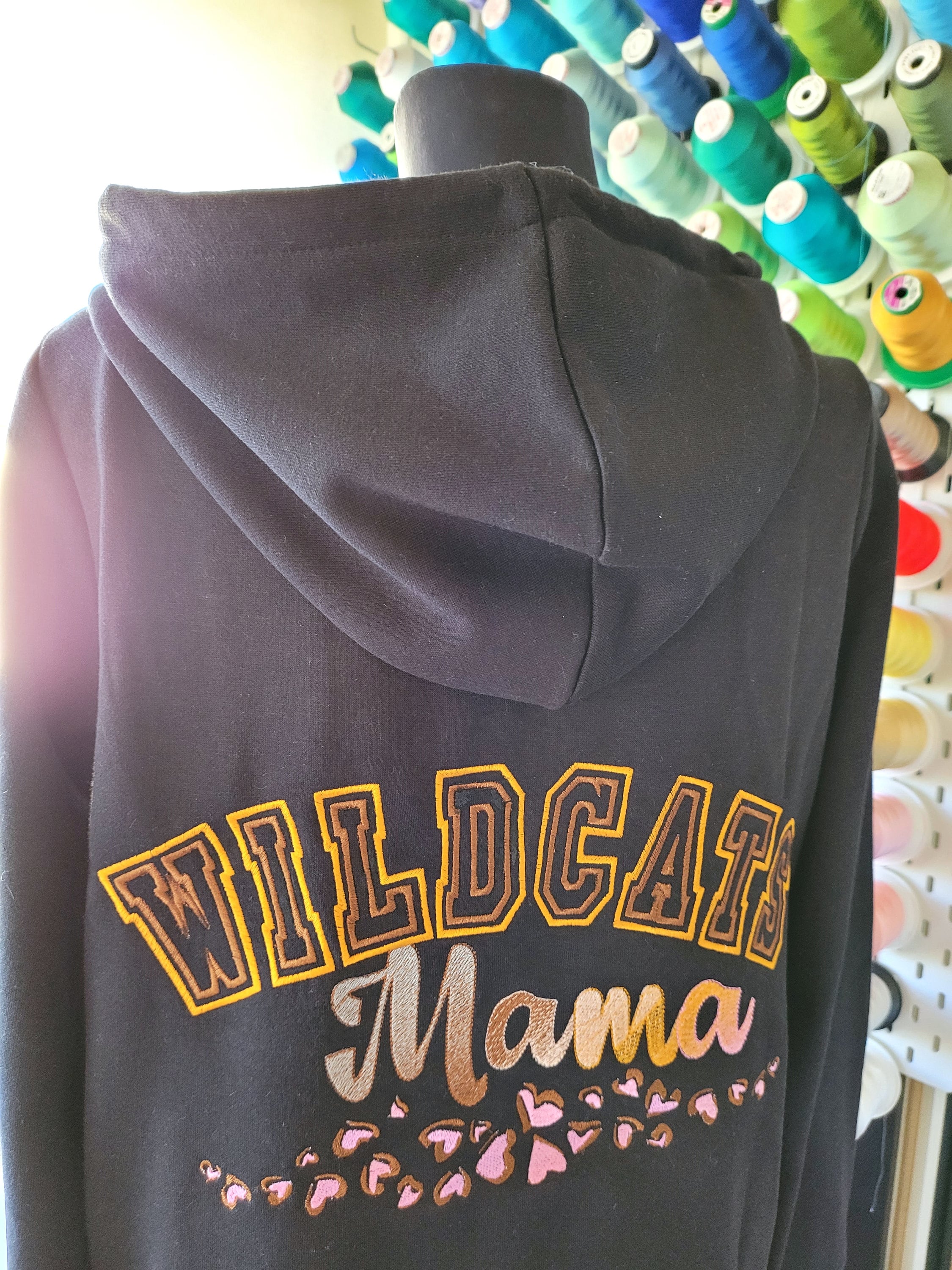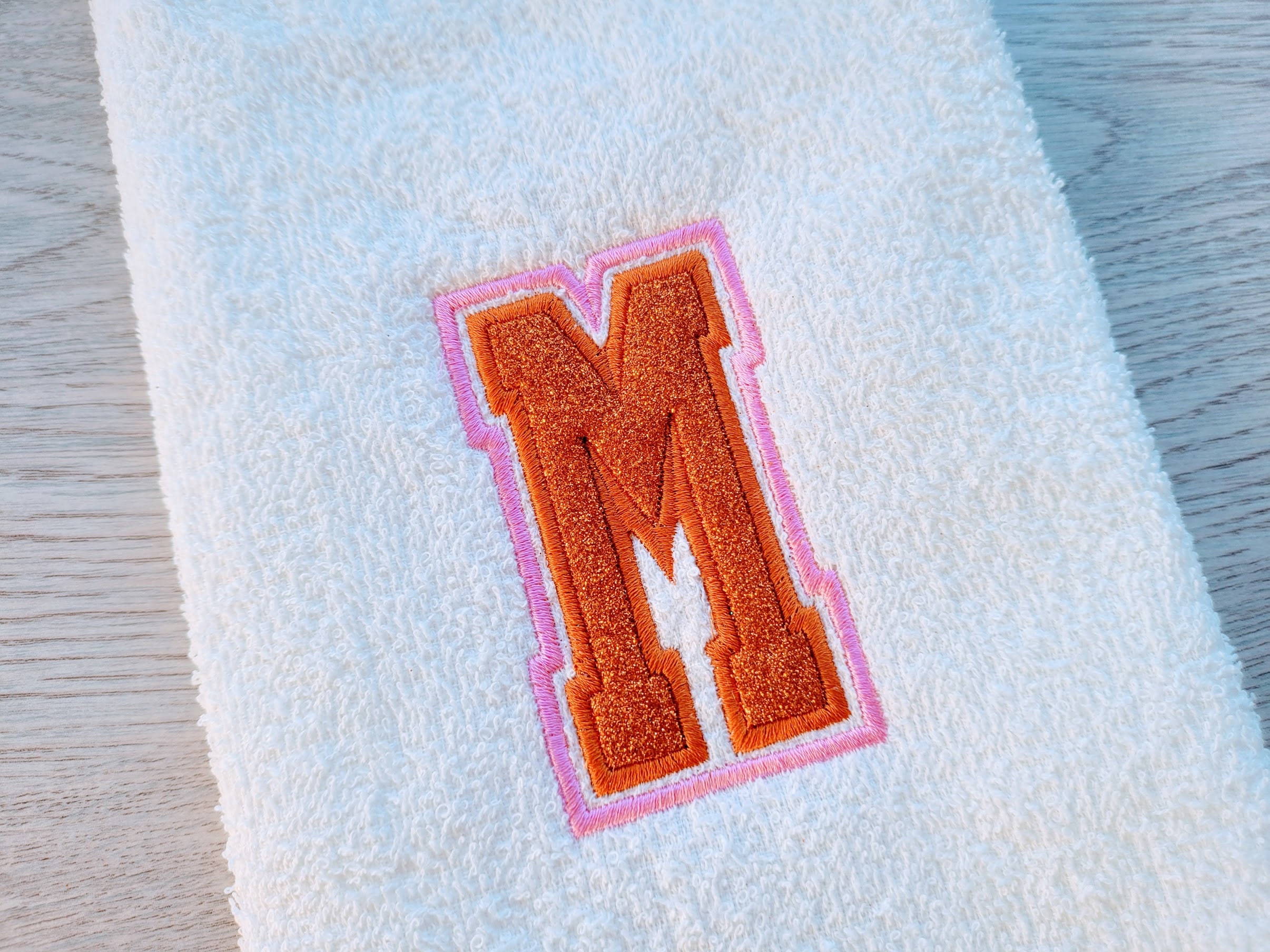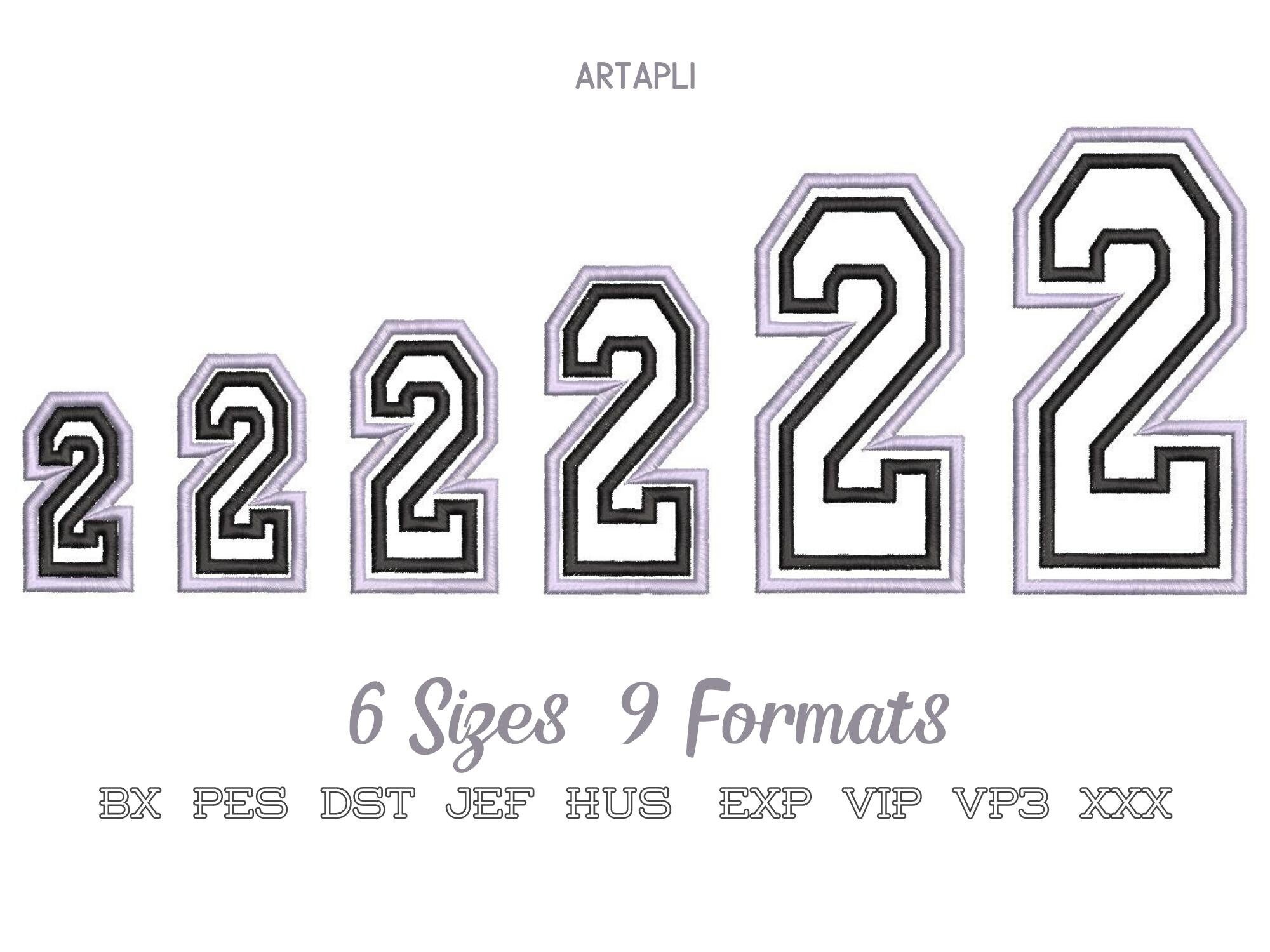
Double applique Thin Narrow FONT Athletic Sport High School Team Players machine embroidery designs, sport alphabet letters BX font included
Double applique and two outlines narrow sport font.
The font has nice wide satin stitch outlines.
This is a font of capital letters and numbers, including ampersand "&"